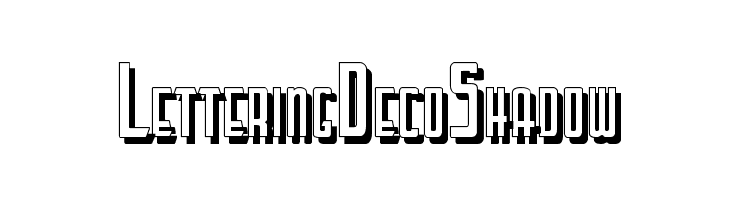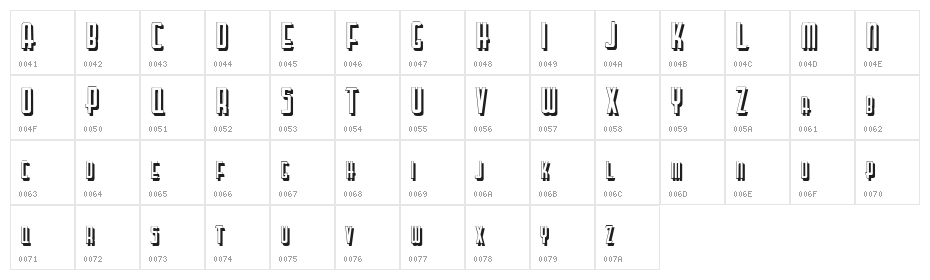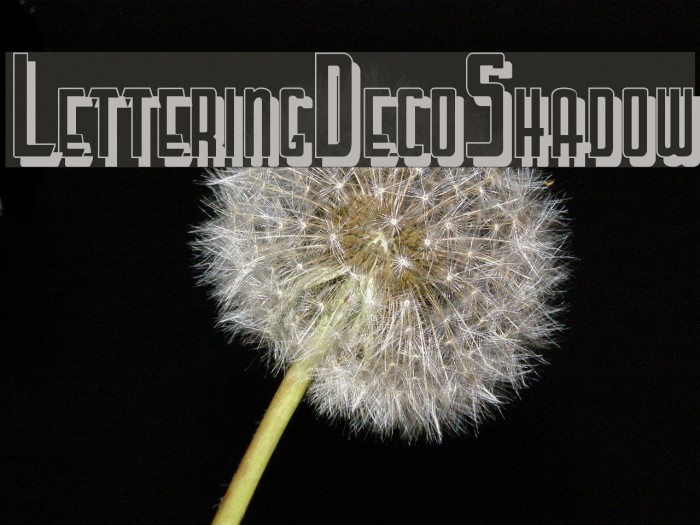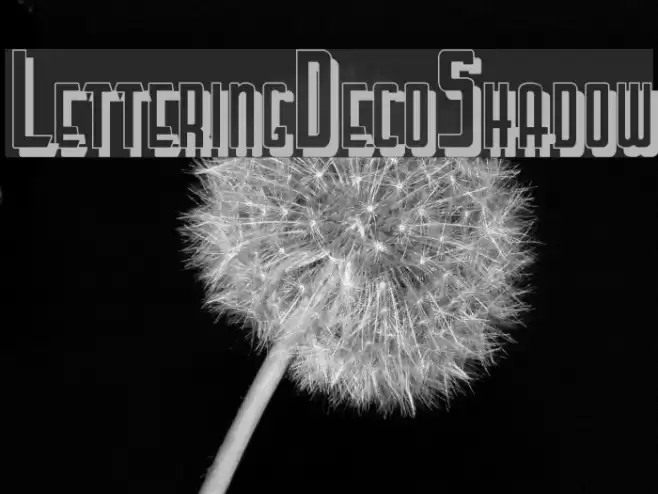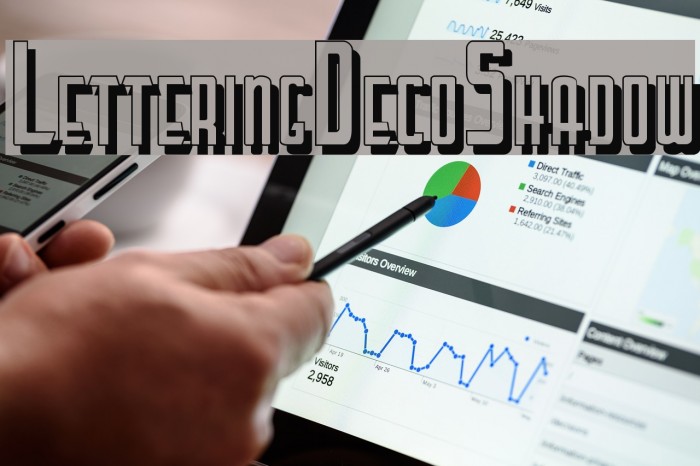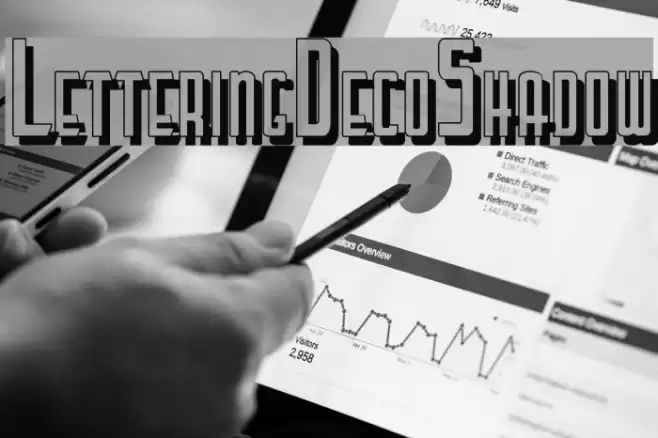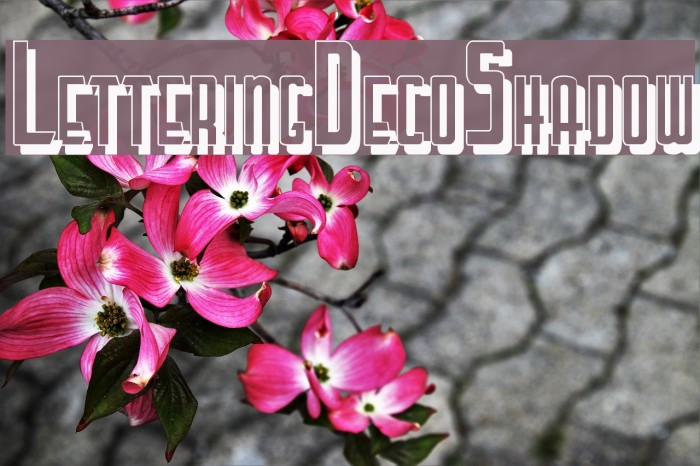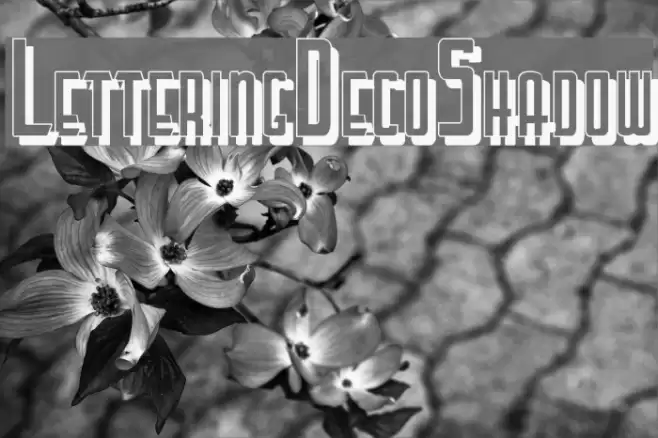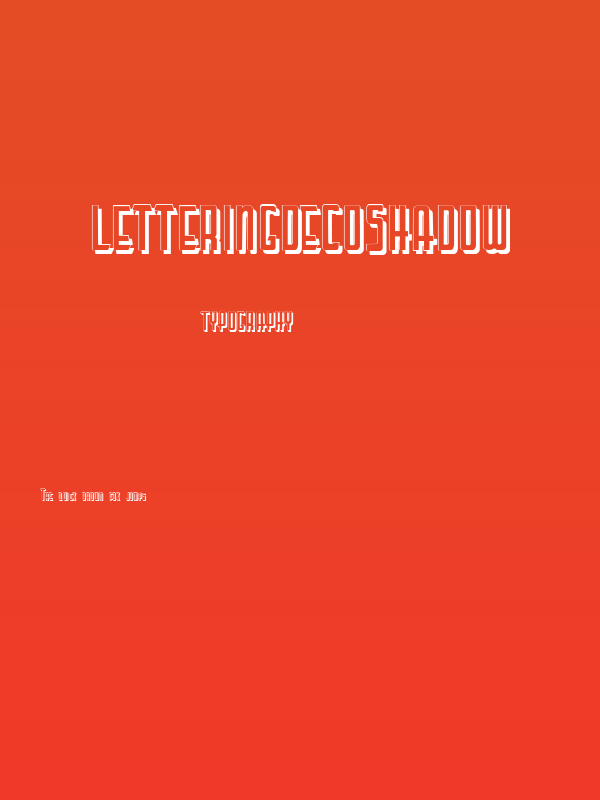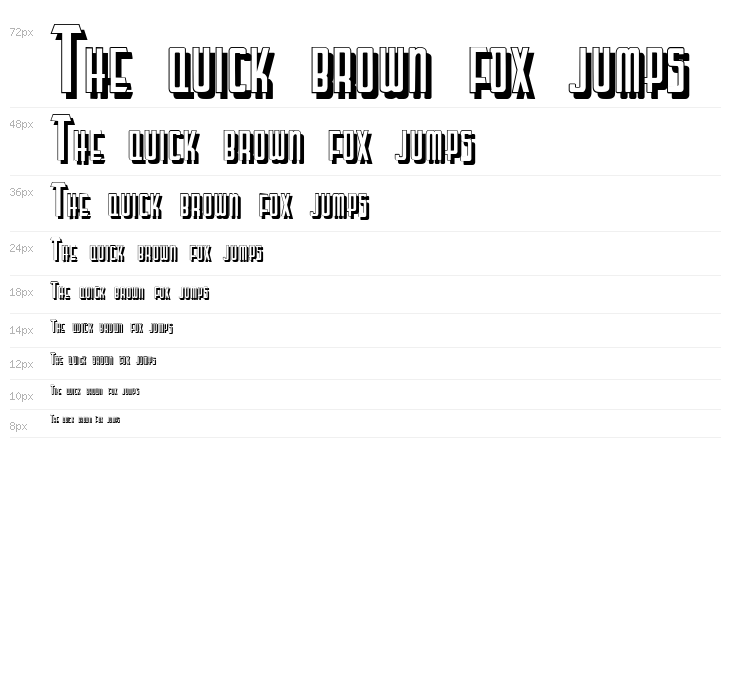
LetteringDecoShadow Font
LetteringDecoShadow Description
This font features a bold, decorative style with a distinct shadow effect that gives it a three-dimensional appearance. The characters are tall and narrow, with clean lines and a modern aesthetic. The shadow adds depth and a sense of movement, making it stand out in any design. The uppercase letters are particularly striking, with a consistent height and width that create a cohesive look. This font is ideal for projects that require a strong visual impact, such as posters, headlines, or branding materials.